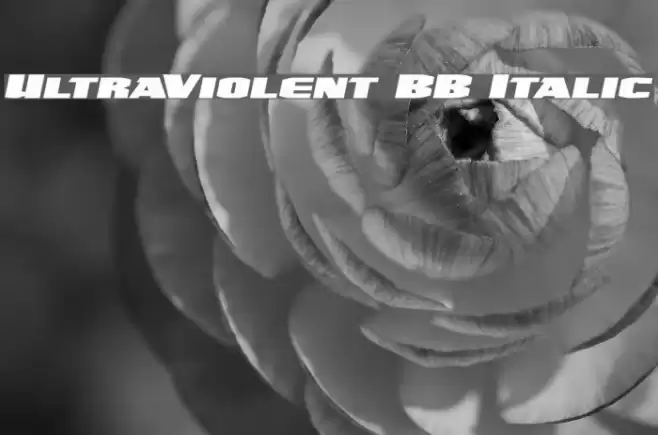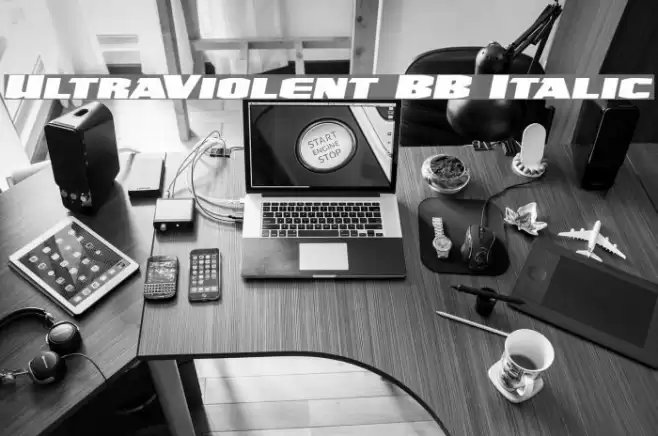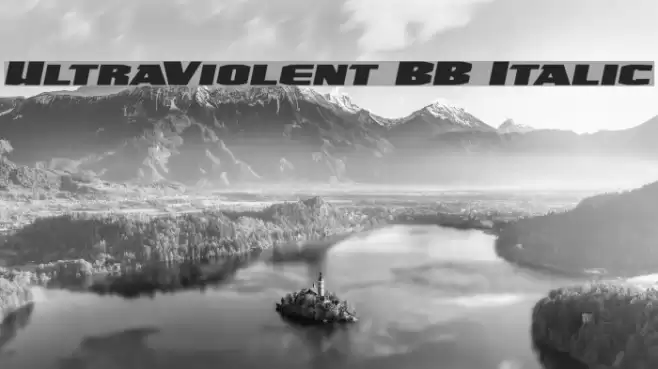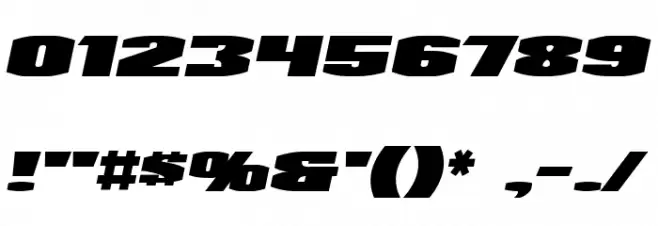
UltraViolent BB Italic Font
UltraViolent BB Italic Description
This font features a bold, aggressive style with a distinct italic slant, giving it a dynamic and energetic appearance. The characters are wide and have a strong presence, making them ideal for attention-grabbing designs. The strokes are thick and consistent, providing a uniform look across all characters. The angular cuts and sharp edges contribute to its modern and edgy feel. This font is particularly suitable for projects that require a bold statement, such as posters, headlines, and branding materials. Its unique style ensures that it stands out in any design context.
A bold, italic font with a dynamic and edgy style, perfect for impactful designs from Uncategorized fonts.
- Proposed Projects: Ideal for posters, headlines, branding, and any design needing a bold statement.
- Width: Expanded